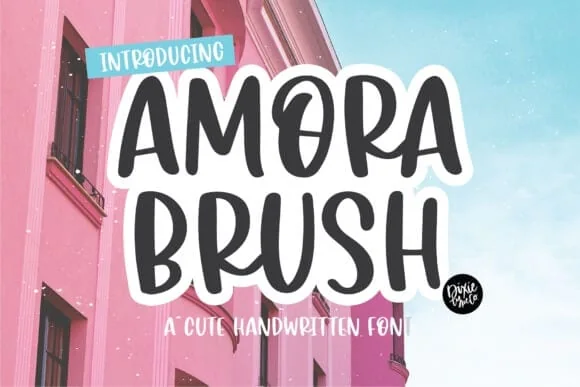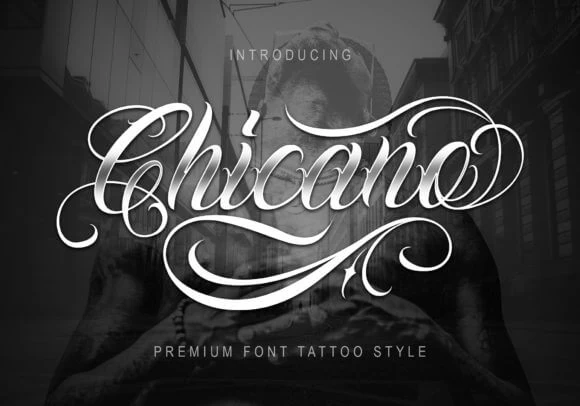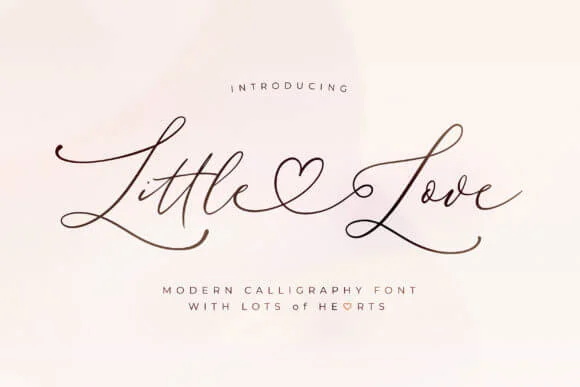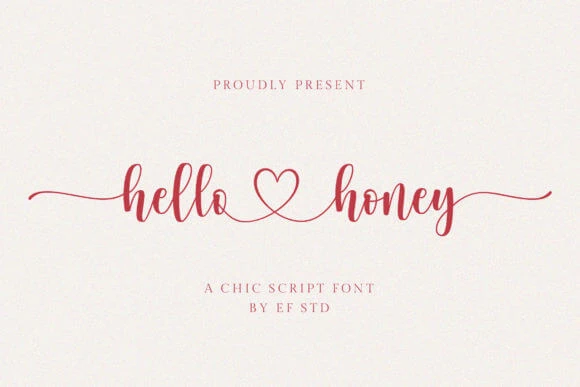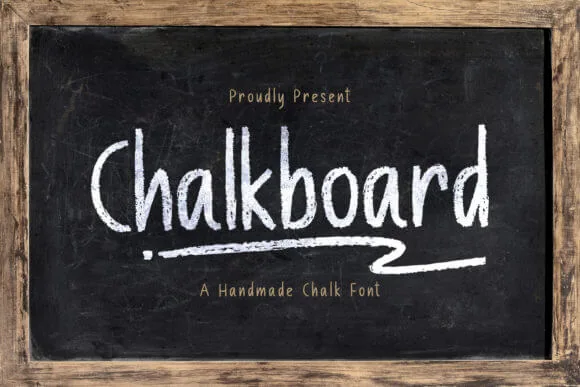
A handwritten font will make your design projects feel meaningful and unique. But, finding the best handwritten fonts can seem like a whole separate project.
You want fonts that are legible and match the specific style and purpose of your project. While many fantastic handwritten fonts exist, many of them are outdated or difficult to read.
Save yourself the time and trouble of doing a web-wide search. Use this guide to pick the best handwriting fonts for your future design projects. Theyโre sure to give all your creations a genuine and personal touch.
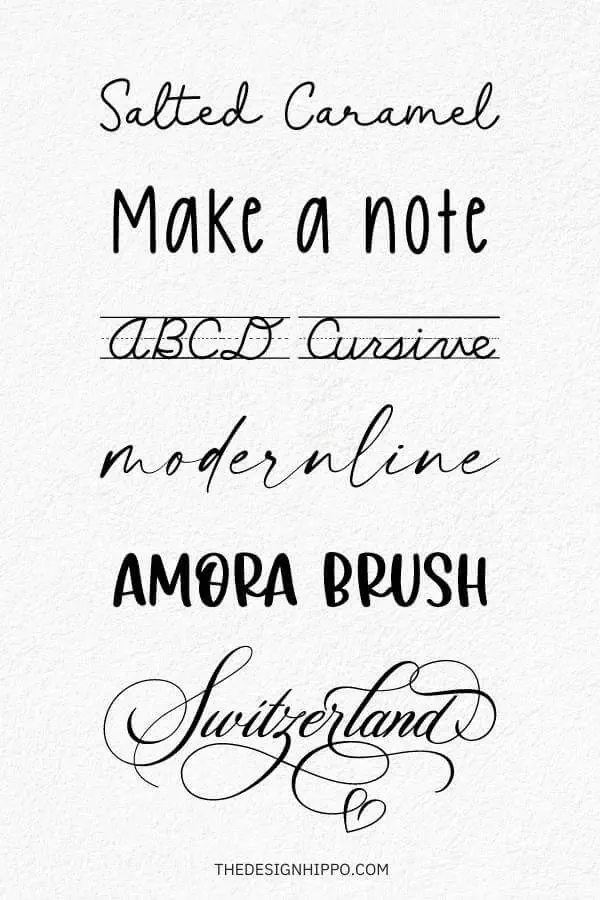
Best Handwriting Fonts – Our Top Picks
Best Handwriting Fonts
As experienced designers ourselves, we understand what makes a good hand-drawn font. We also know which types of fonts are ideal for certain kinds of projects.
Most importantly, we understand that youโre looking for quality fonts. You want a font that is easy to use and looks polished on your finished product.
The fonts below fit a variety of design needs. They will add an authentic handwritten touch to your creations.
Salted Caramel
Best Handwriting Font Overall
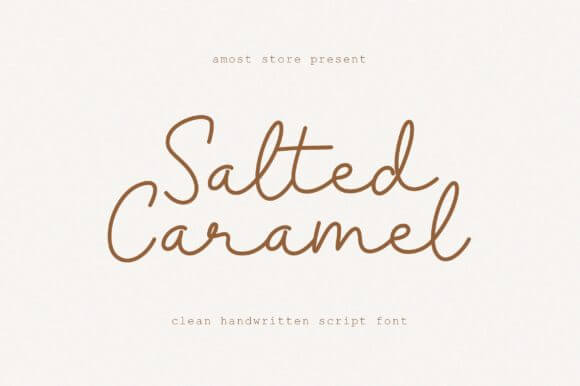
Salted Caramel is a delicate script font with thin letters that give the text a modern and feminine look. All the lowercase letters connect as cursive text. The capital letters stand alone as print. The result is a realistic handwritten look.
This font is the best-handwritten font because itโs versatile. You can use it on a variety of creative projects.
Randy Sofia
Most Popular Handwriting Font
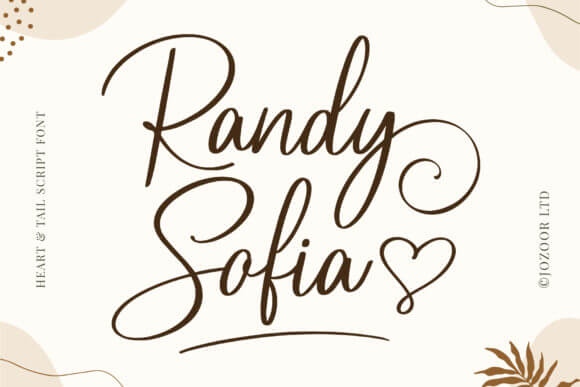
Randy Sofia, a romantic calligraphy font, is the most popular choice for creators. Designers and DIYers love it because it’s easy to give the text its own unique handwritten look.
The lowercase characters come with beginning and end swashes and decorative glyphs. Use them to add hearts, underlines, and other embellishments to your text. Perfect for everything from wedding invitations to Cricut crafts.
Make a Note
Best Handwriting Font for Notes
Make a Note is a clean, simple, and easy-to-read handwritten font. Itโs perfect for digital notebooks and planners or any project that requires a lot of text.
This neat handwriting font works well with digital note-taking apps such as Goodnotes and Notability. Therefore, itโs a popular choice for students. The minimal style of the letters also means this font will look great on creative projects, including greeting cards and home dรฉcor.
ABCD Learning Cursive
Best Font for Teaching Handwriting
ABCD Learning Cursive is a font bundle designed to help students learn how to write in cursive. The bundle includes uppercase and lowercase letters with arrow guides and lined paper. It also includes a font with the letters drawn as dotted lines, which is perfect for tracing.
The fonts are based on the DโNealian method of writing. Use it to create worksheets for class or at-home practice.
Karlie School
Easy Handwriting Font to Write
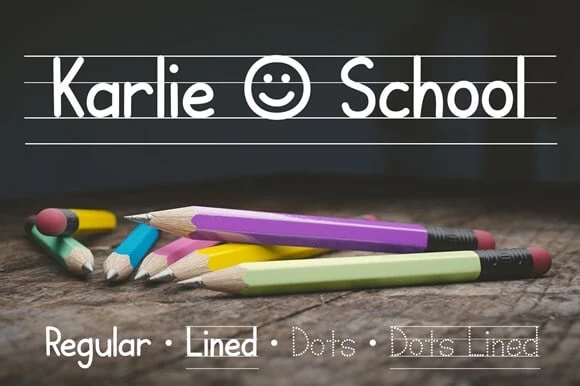
Karlie School is another perfect choice for kids learning to write. Itโs a font bundle that includes fonts with lined paper and dotted lines for tracing.
Additionally, it also comes with a solid version of the font. You can use the solid version for any school or kid-themed project, such as name tags or classroom signs.
Samantha Calligraphy
Best Handwritten Font for Cricut
If you need a handwritten font that works well with Cricut, Samantha is the best choice. Itโs a beautiful modern calligraphy font made up of smooth, clean letters. The text will be easy to cut, ensuring your DIY project turns out flawlessly.
Add extra elegance to your design by using alternate characters with tails and hearts at the beginning and end. Perfect for vinyl crafts such as signs, tumblers, and t-shirts.
Switzerland
Best Handwritten Calligraphy Font
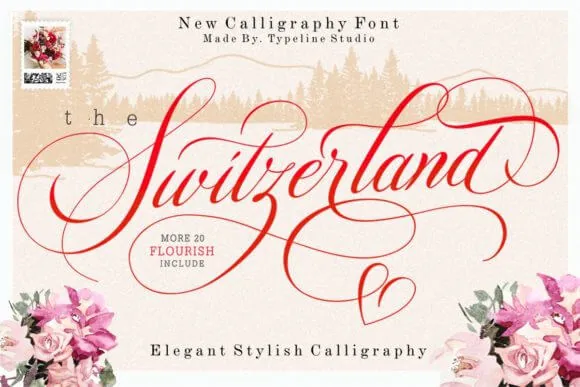
Switzerland is our top recommendation if youโre looking for a stylish calligraphy font. The traditional style of the handwritten letters gives the font a formal look. Use the stylistic alternates and swashes to elevate your text even more.
This font is a great choice for any project that needs a fancy calligraphy script. It works well for wedding invitations, packaging designs, and more.
Modernline
Best Font for Logo
Modernline is the best choice for logos because itโs easy to read and has a distinguishable modern style. This realistic, elegant handwriting font has a dancing baseline.
It also features smooth lines and gorgeous glyphs and alternatives. By using the glyphs and stylistic alternates, you can make the name on your logo truly stand out.
Sign Rathi
Best Font for Signature
Sign Rathi is a handwritten script that looks like a real signature. The font is popular for creating logos, business branding, and email signatures. Additionally, itโs an excellent choice if you need to type your signature on a certificate or an official document.
Make A Note, Modernline, and Adobe Handwriting are the best fonts to use on this list if youโre looking for a realistic handwriting font.
What font looks like cursive writing?
Cursive fonts have letters that connect. They can be elegant and formal or casual and simple. Itโs important to match the style of the cursive font you choose to the style of your project.
Some great cursive fonts from our list include Cedarville Cursive, Affection, and Salted Caramel.